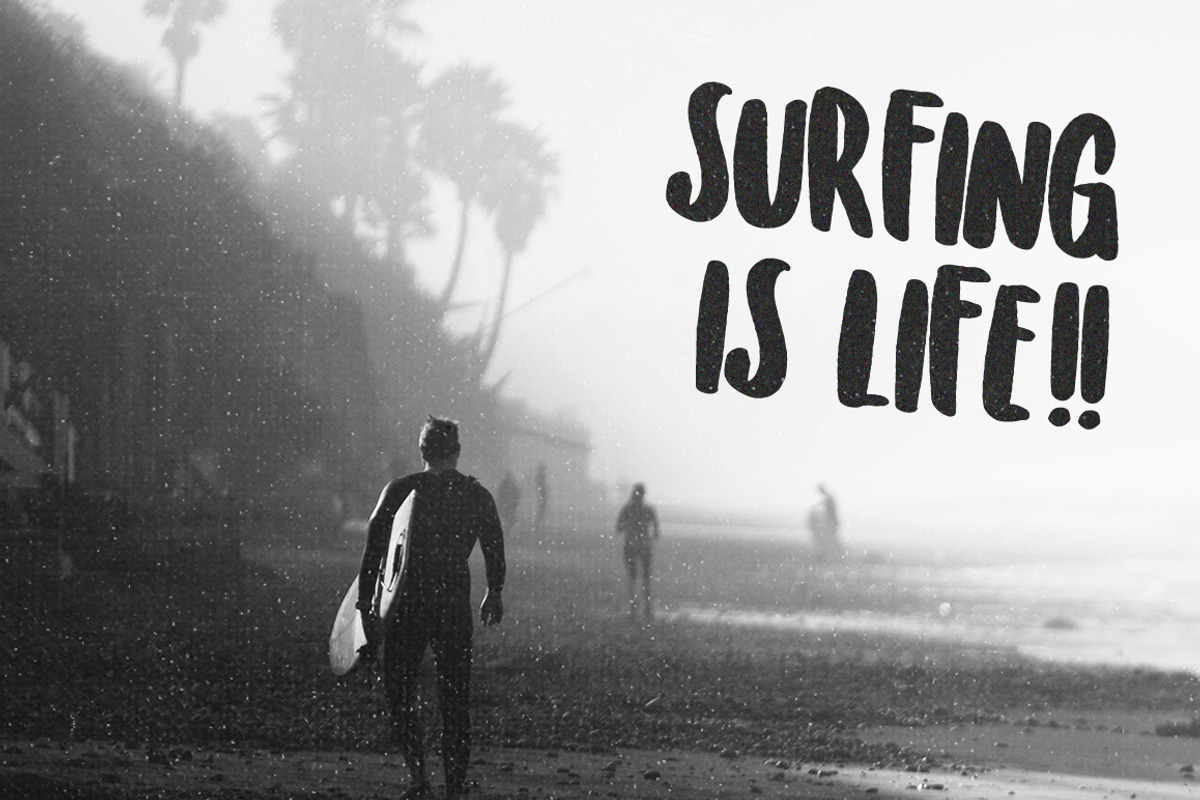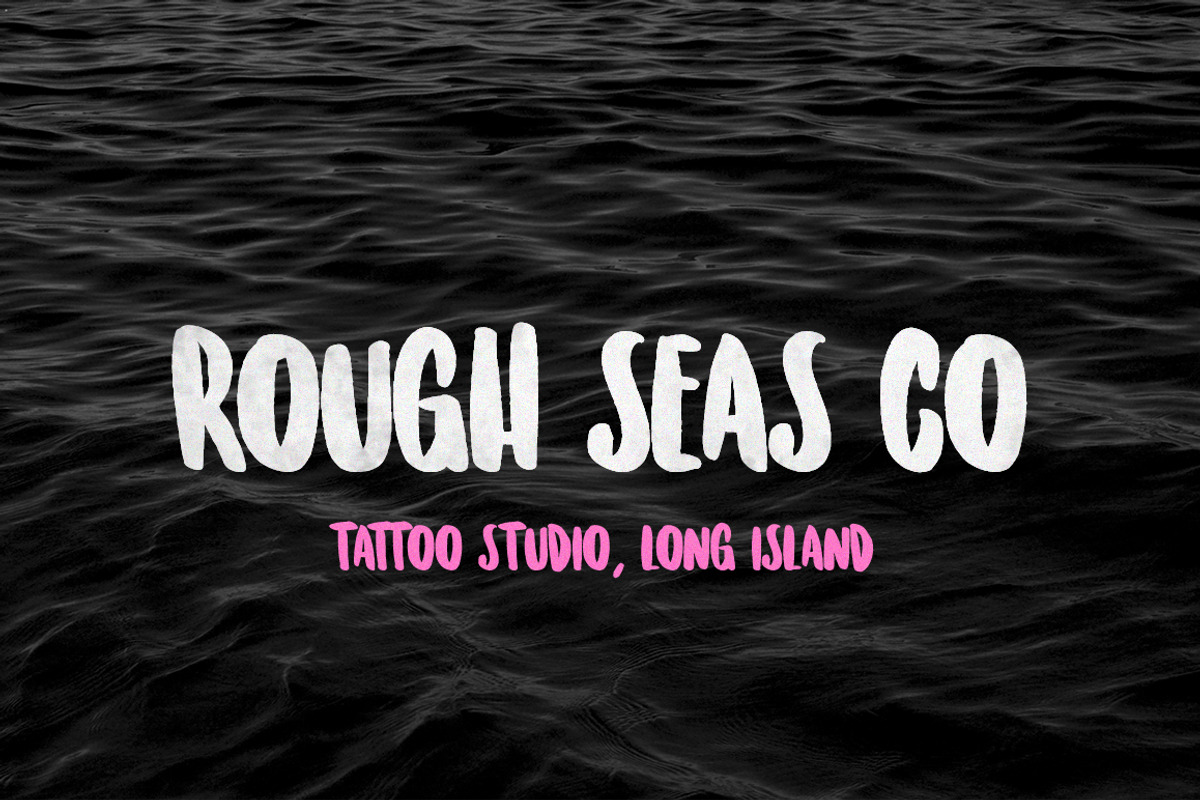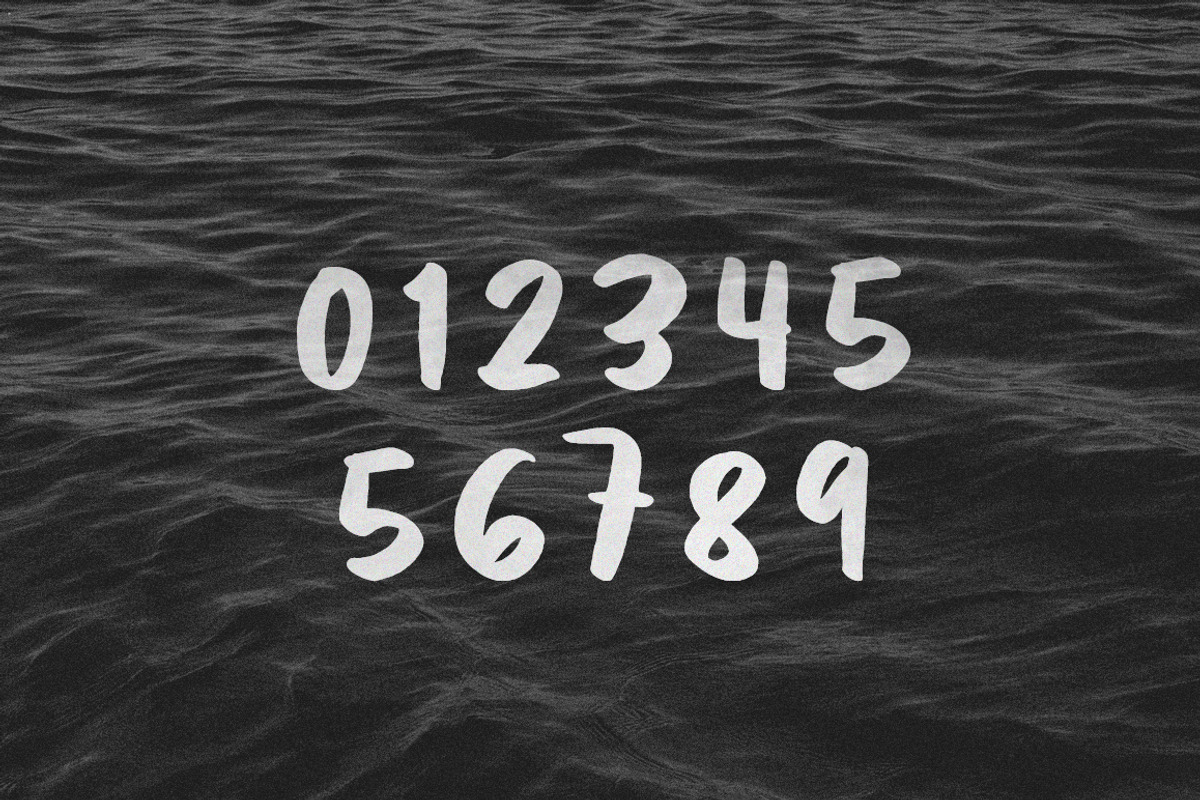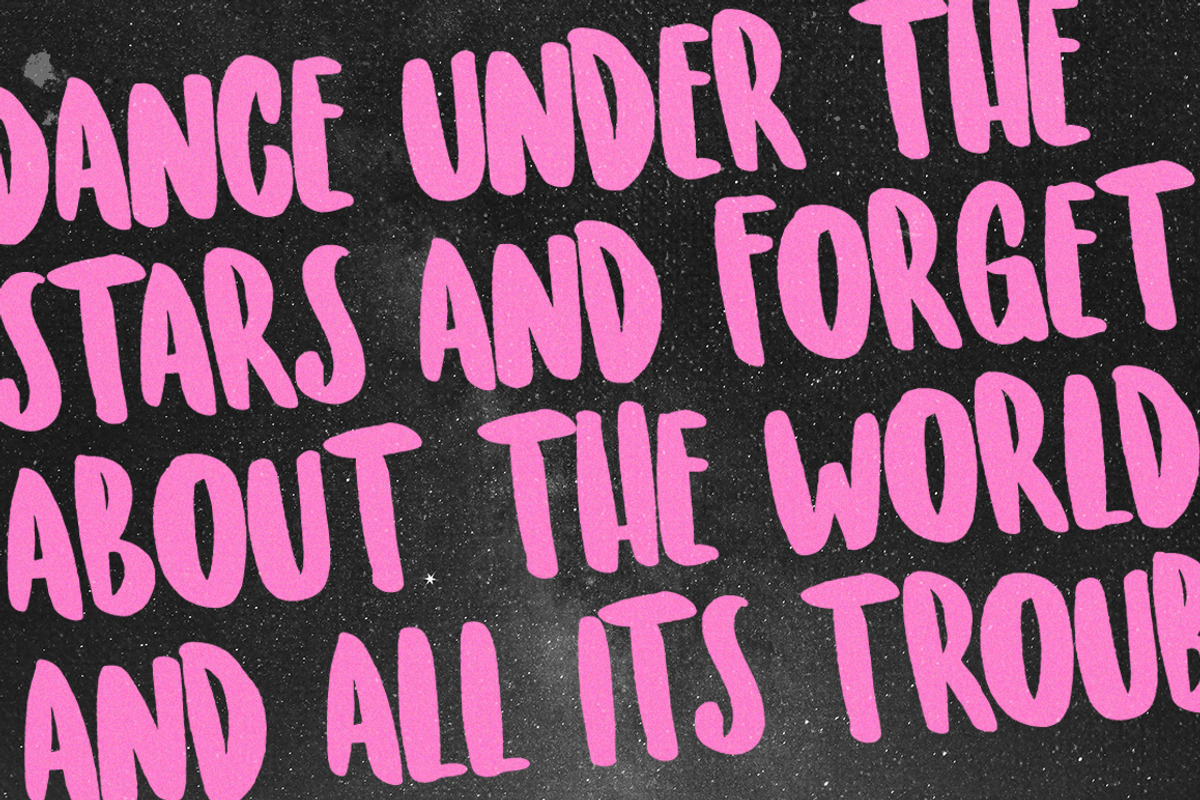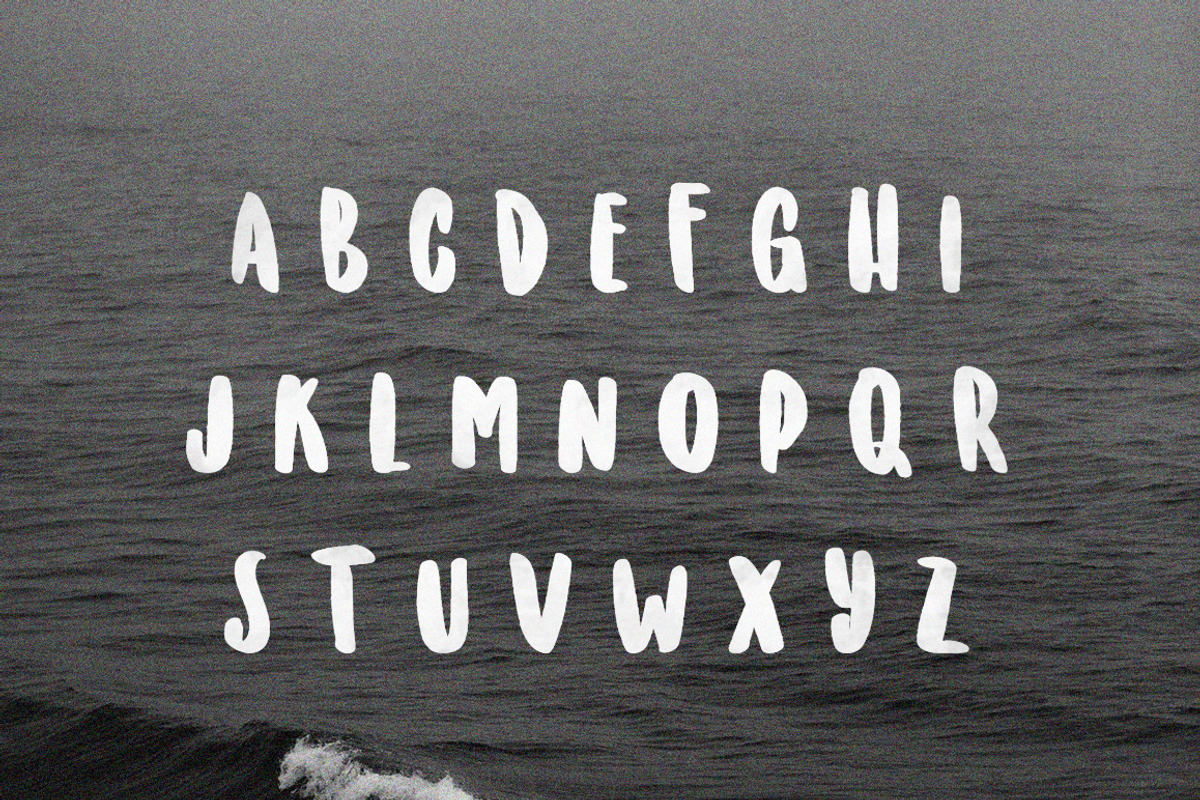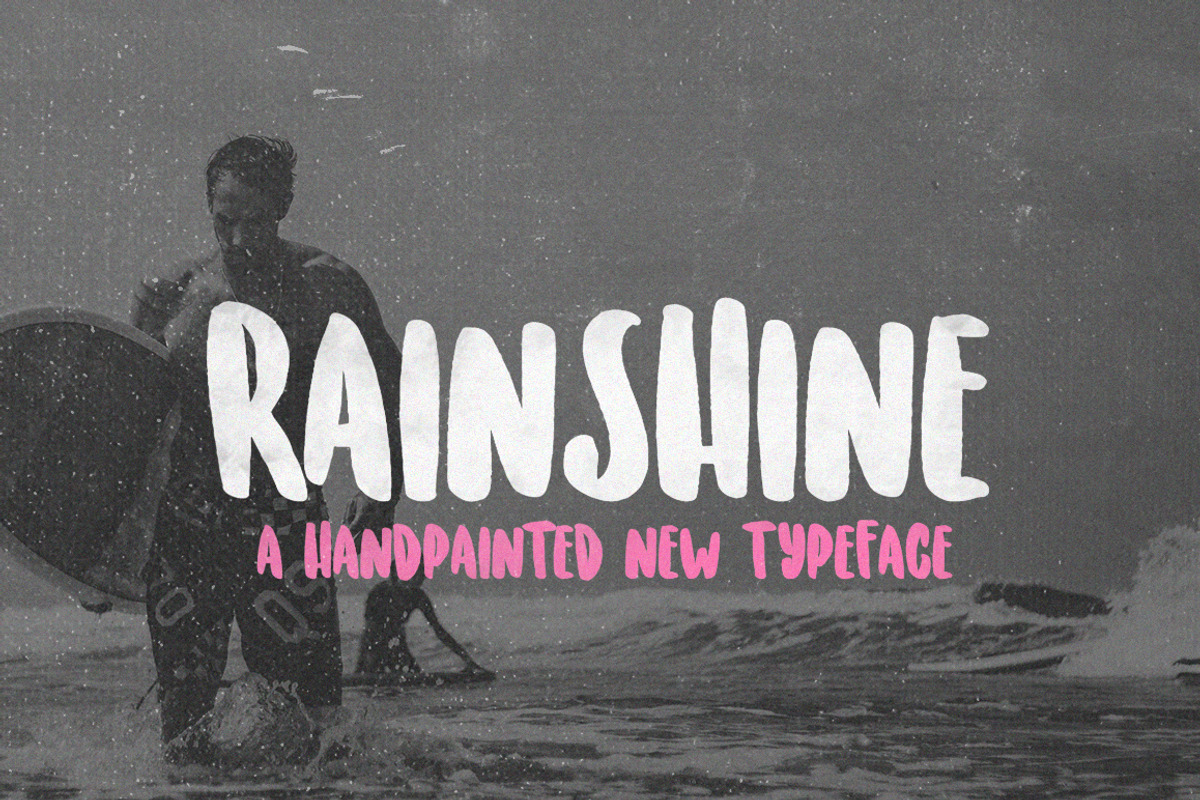
Rainshine Font
Why Rainshine Font is worth a look
Rainshine Font by Salt & Pepper Designs fits naturally into Branding, posters, packaging, typography.